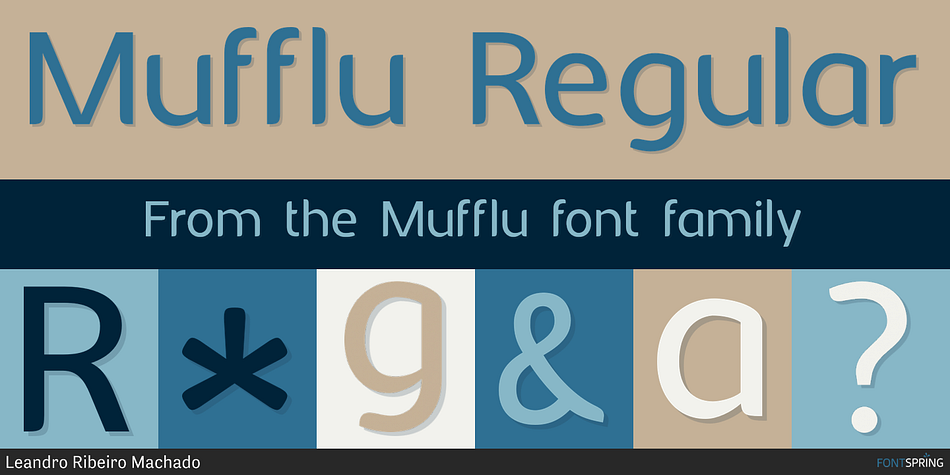
Mufflu Regular
Designed by Leandro Ribeiro Machado, Mufflu is a sans serif font published by Leandro Ribeiro Machado.
Mufflu sans-serif type is designed for comfortable reading, great for text, fitting nicely into small and large blocks of text.